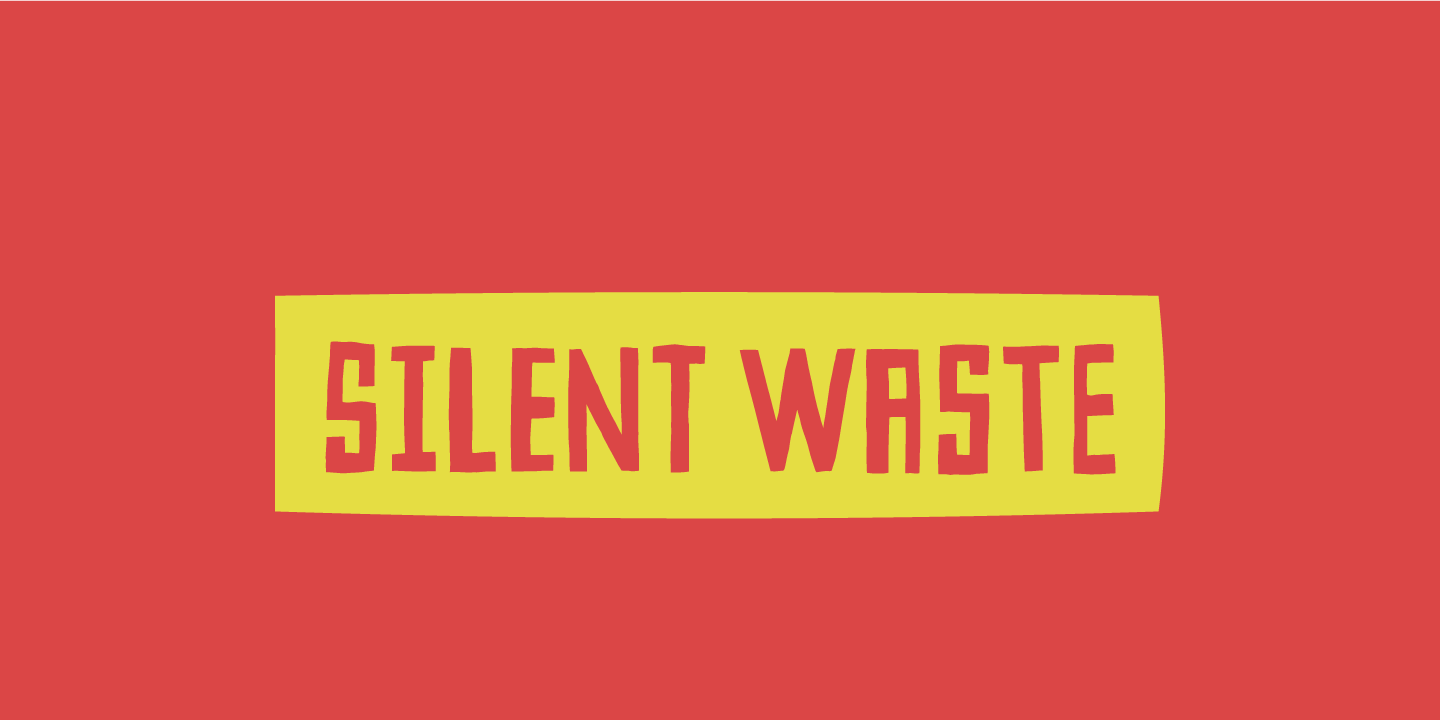
Silent Waste Font is a hauntingly atmospheric and powerfully evocative typeface, perfectly suited for projects that demand a desolate, post-apocalyptic, or grim aesthetic. Imagine it dominating the title screen of a survival horror video game, adding an eerie and unsettling edge to dystopian film posters, or making an unforgettable statement on graphic novel covers set in abandoned landscapes. It's also an excellent choice for crafting striking logos for dark fantasy themes, designing impactful merchandise for alternative or experimental brands, or bringing a gritty, mysterious vibe to digital content and themed event promotions. If you're looking to convey decay, isolation, and an undeniable sense of desolate beauty, Silent Waste Font is an outstanding selection.
What makes Silent Waste Font so exciting? It’s its unparalleled ability to combine a strong, often distressed or fragmented construction with distinctive, unsettling details that evoke the feeling of a world left behind. This font is designed to stand out, with its raw edges and unyielding presence making it ideal for display purposes where impactful storytelling is paramount. Despite its often chaotic visual texture, Silent Waste Font is crafted to maintain readability, ensuring that your message is delivered with both clarity and significant emotional resonance. Designers will appreciate its versatility in creating designs that are both visually aggressive and deeply immersive, making it a go-to choice for projects that need to embody a sense of ruin, mystery, and profound quiet.
The Silent Waste Font family is typically designed to maximize its formidable and distinctive aesthetic. While it might primarily feature a singular, high-impact Regular or Bold weight that perfectly embodies its unique style, you could find variations that enhance its utility, such as more heavily distressed versions for a truly weathered feel, or stylistic alternatives that offer more creative typographic possibilities to deepen its narrative. These variations ensure that Silent Waste Font maintains its cohesive and high-impact visual identity across different design applications, from commanding titles to evocative narrative elements. Discover the chilling power of Silent Waste Font Free Download and infuse your designs with an unforgettable sense of a world consumed by silence.